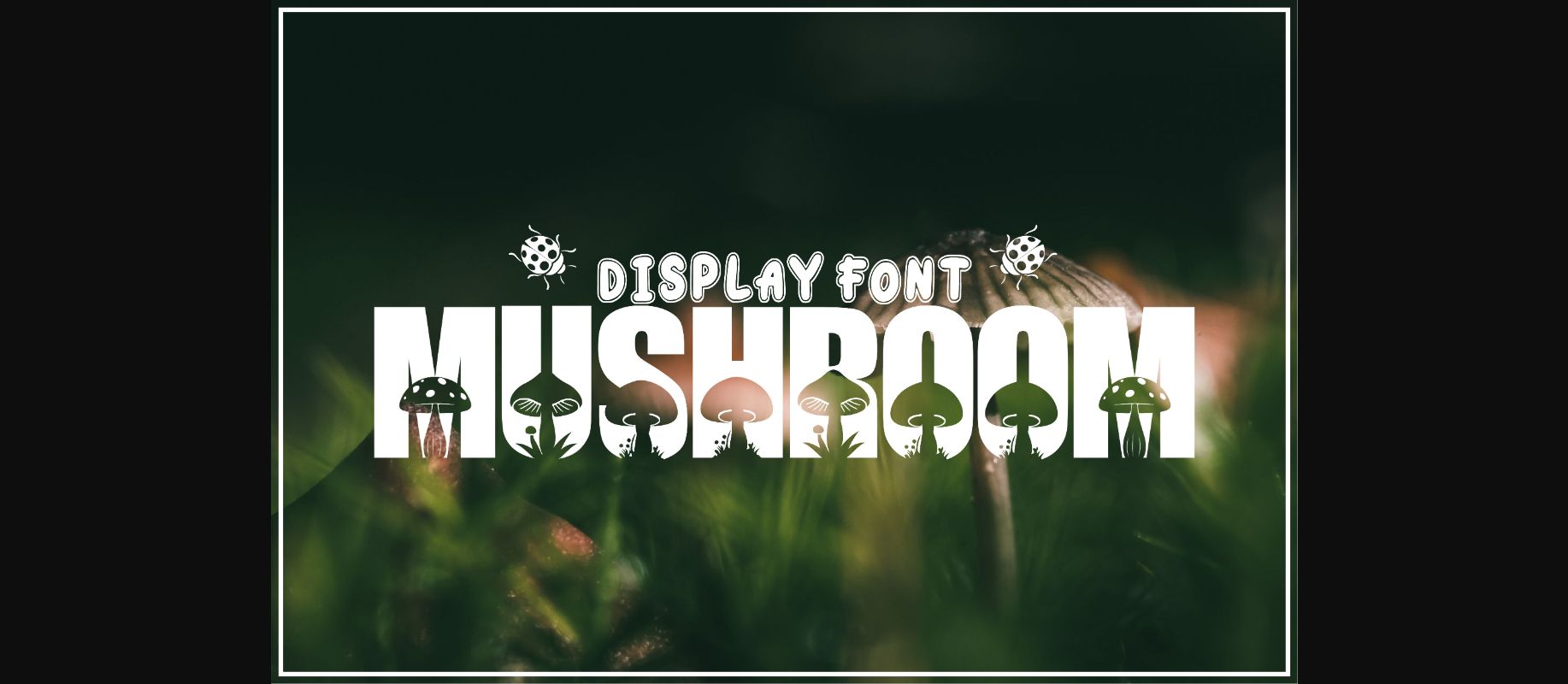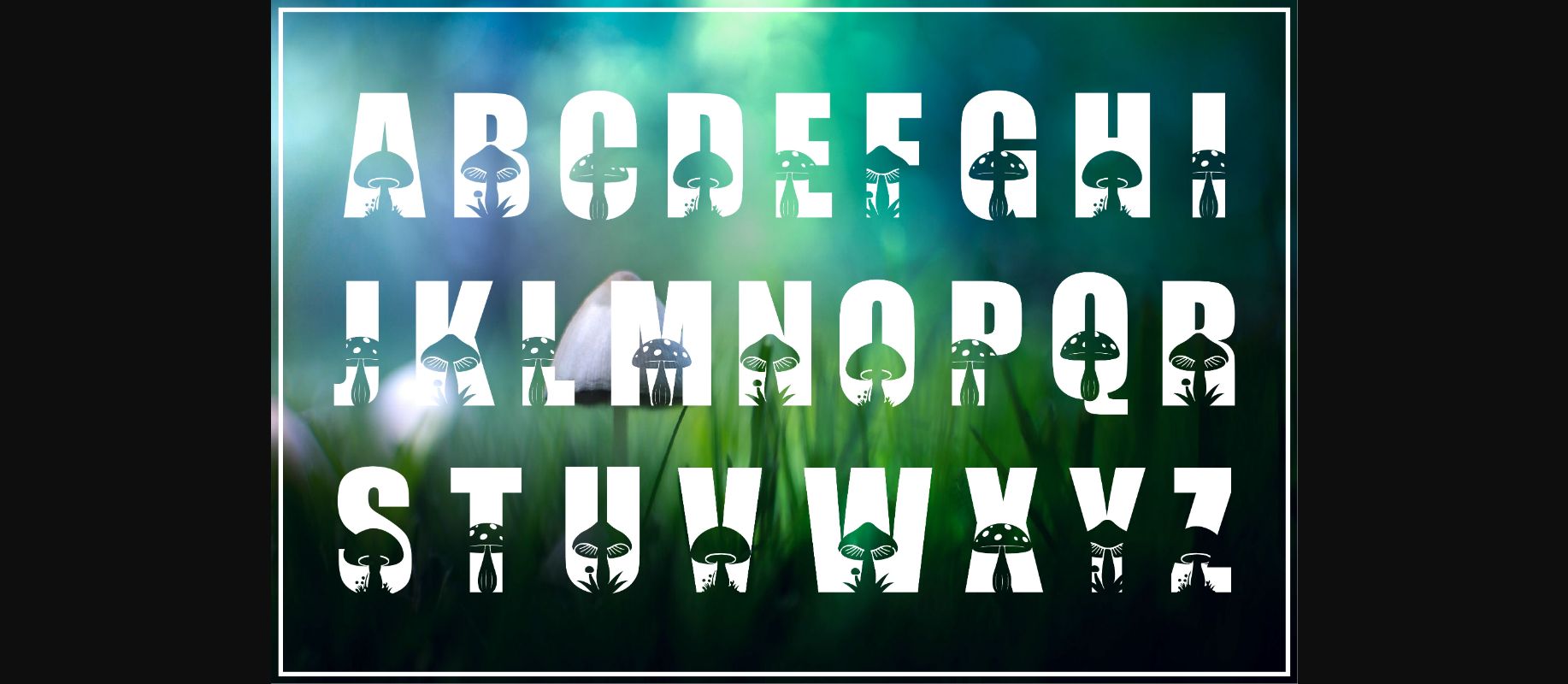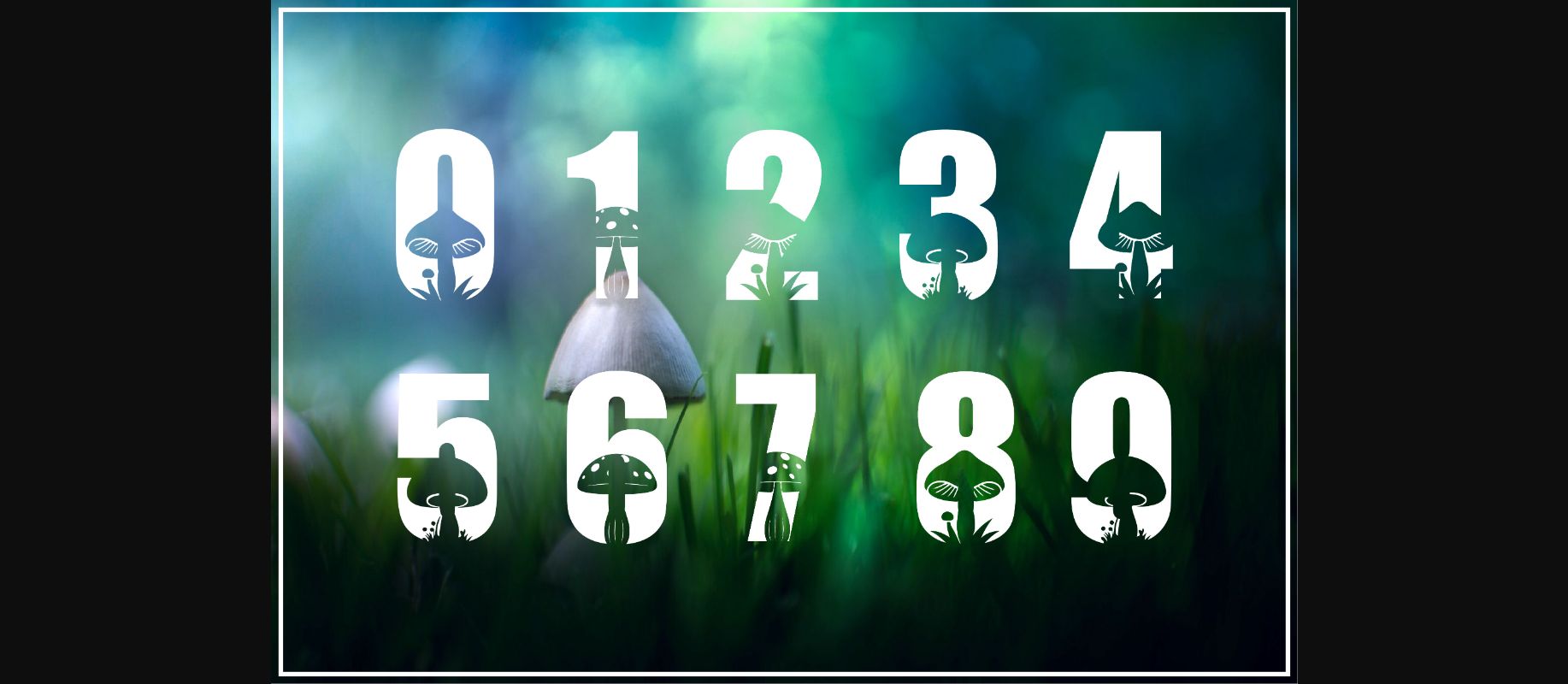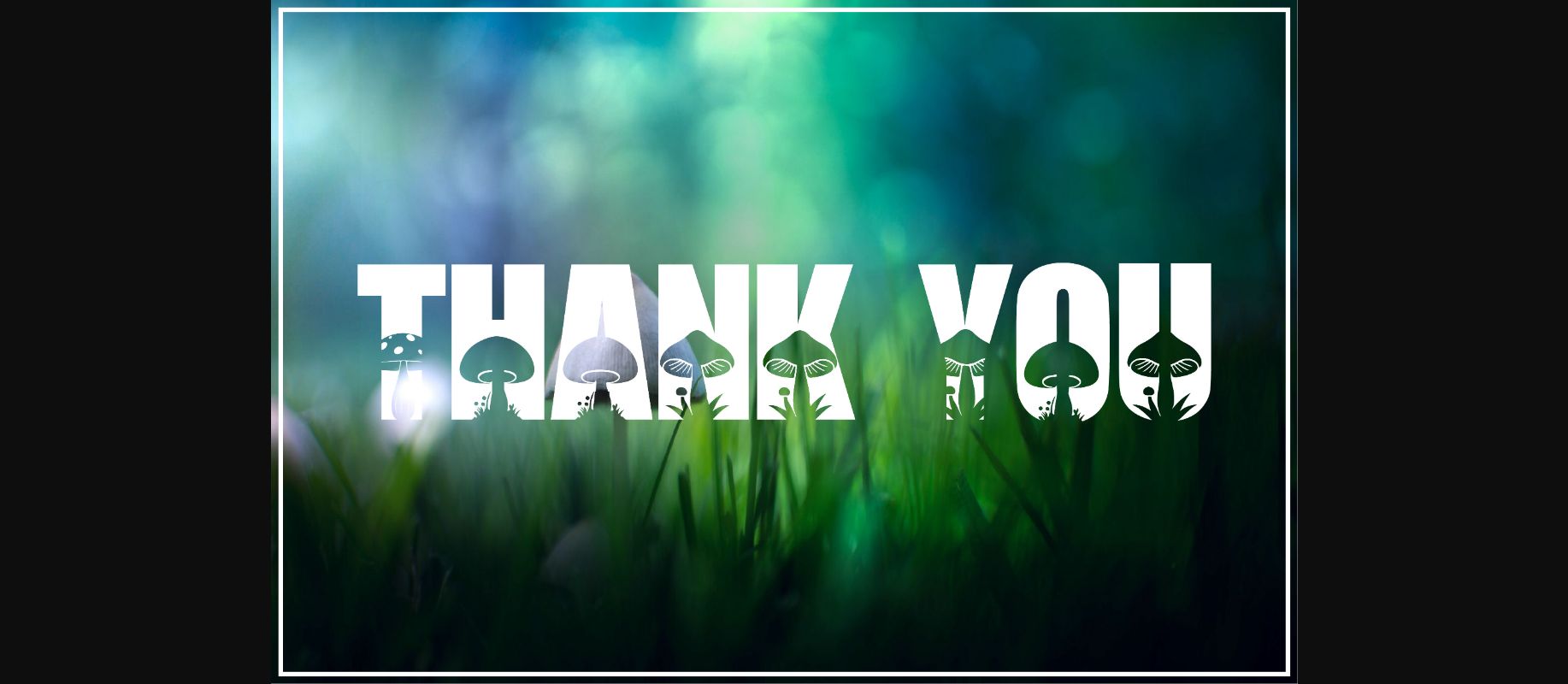
Mushroom is a thick lettered and incredibly unique decorative font. It can be used for a large variety of projects and it will definitely brighten up your crafty ideas.